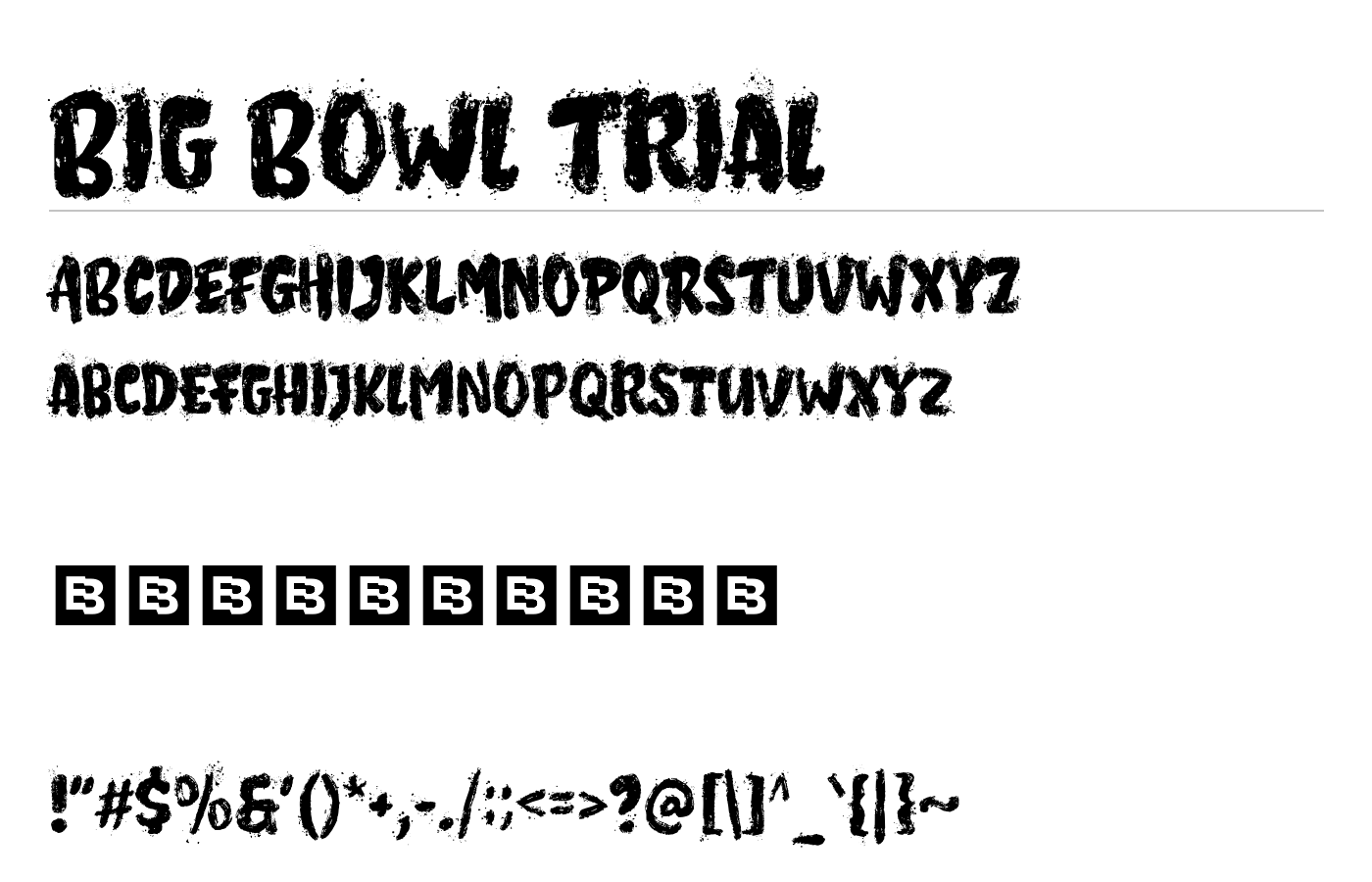
Big Bowl Trial is a bold, hand-drawn display font with a rough, textured look that evokes a playful and energetic vibe. Its uppercase letters feature uneven edges and a distressed style, making it ideal for creative projects that want to feel casual, quirky, or youthful. This font works great for posters, logos, and headlines where a strong, informal personality is desired.
Big Bowl Trial Font
About Big Bowl Trial Font
| Font family | Big Bowl Trial Font |
| Designer | Eko Bimantara |